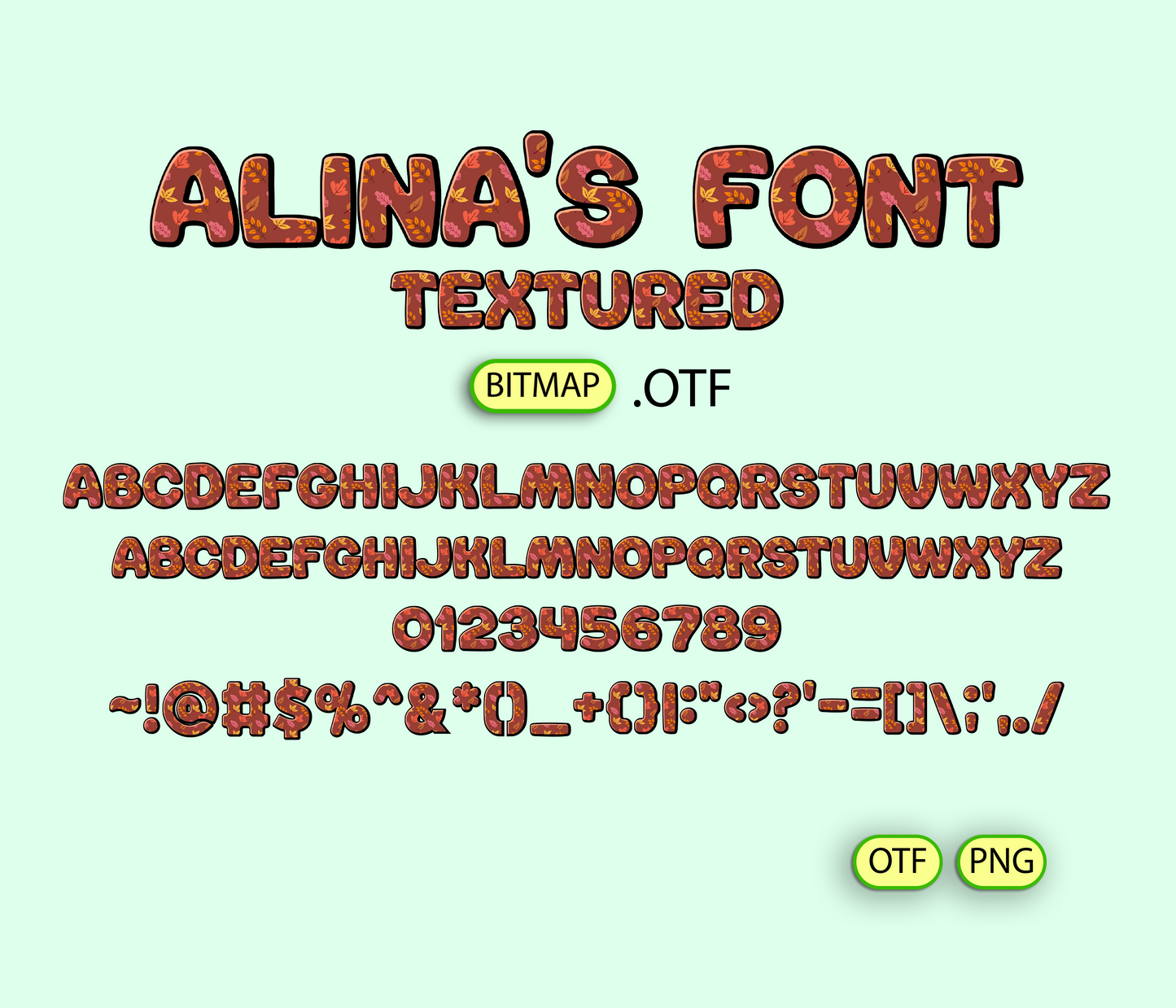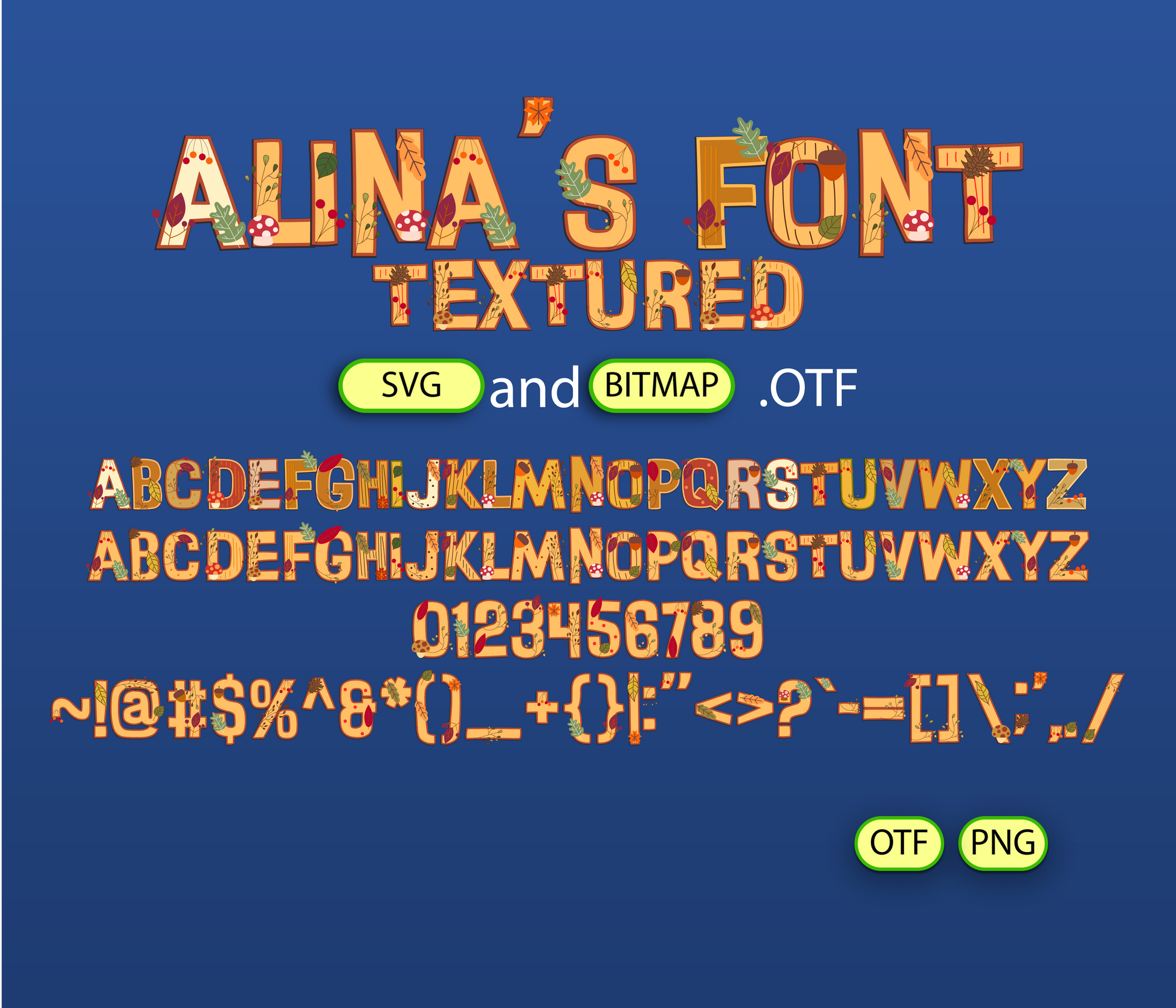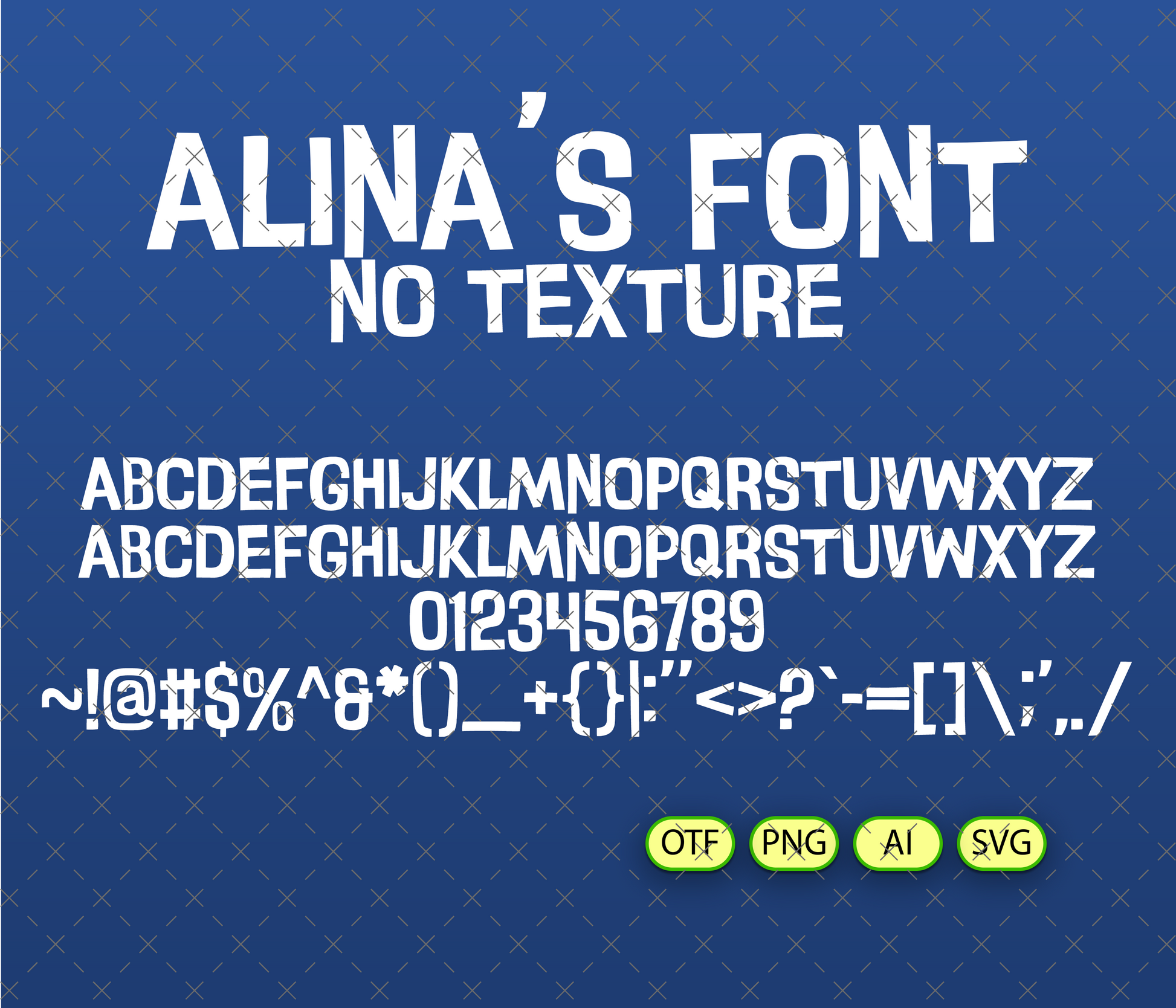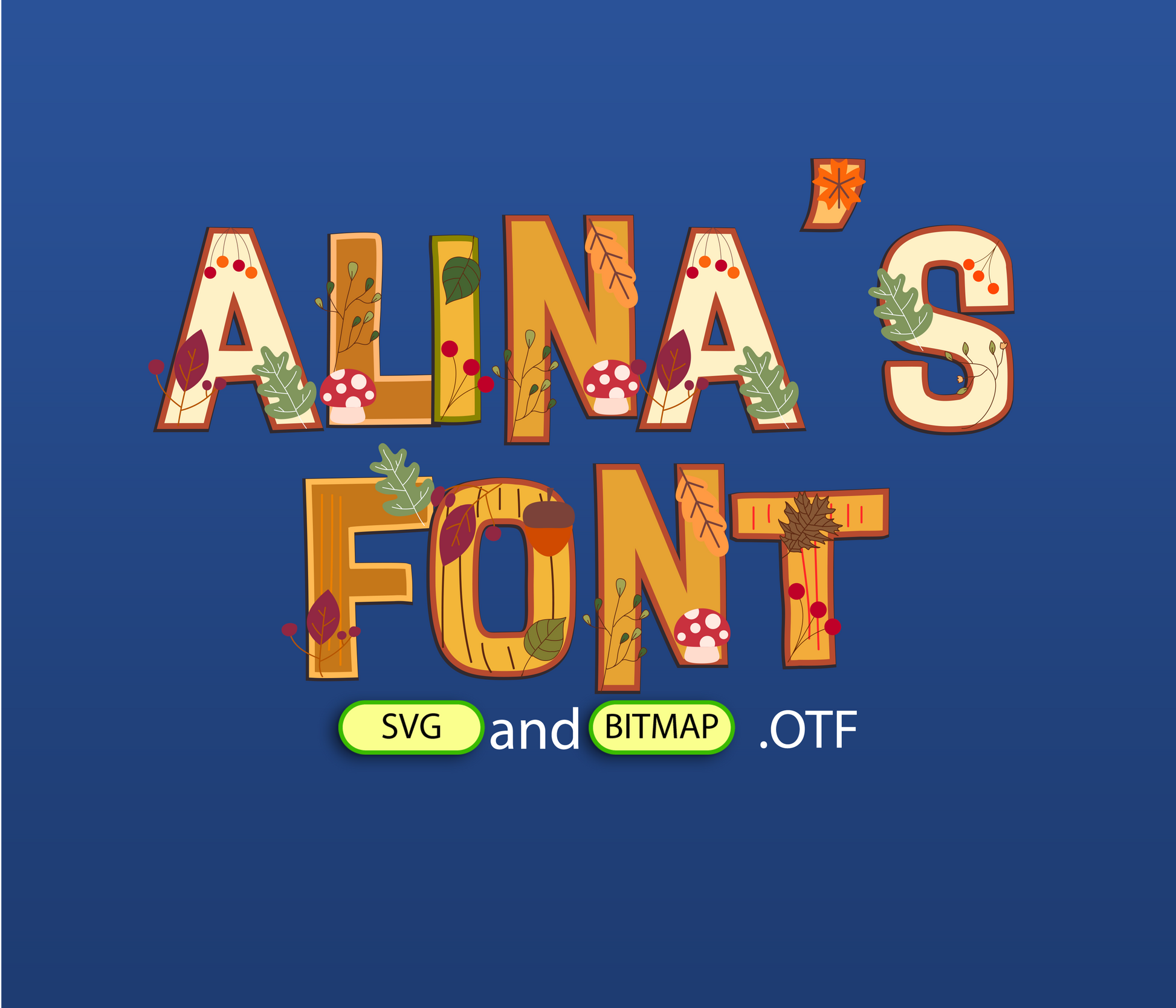
Autumn Harvest Font Textured
Step into the cozy world of fall seasons with our Autumn Harvest font, capturing the essence of golden leaves and crisp weather. Perfect for seasonal enthusiasts, crafters, event organizers, and designers, this font brings the warm, rustic spirit of autumn festivities to your projects. Create enchanting materials, merchandise, or digital content with the nostalgic energy of harvest celebrations.
Our Autumn Harvest font features organic, flowing lines and leaf-inspired characters reflecting the world of seasonal beauty. Ideal for:
- Event Promotions: Create inviting invites, posters, and banners for harvest festivals, thanksgiving gatherings, and fall parties that capture the spirit of autumn magic
- Merchandise Design: Perfect for t-shirts, posters, and accessories that showcase the warm aesthetic of golden leaves and cozy seasons
- Digital Media: Enhance websites, blogs, and social media with seasonal headers and graphics that express the beauty of fall foliage
- Seasonal Content: Add authentic flair to crafts, thanksgiving projects, and creative designs inspired by autumn traditions
- Personal Projects: Bring cozy warmth to scrapbooking, DIY crafts, and home decor inspired by the world of harvest celebrations
Our font pays tribute to the iconic world of fall seasons, empowering your designs with its warm and nostalgic spirit. Whether crafting promotional materials, designing merchandise, or adding a seasonal touch to personal projects, this font communicates the cozy essence of autumn celebrations. Ready to inject harvest warmth into your creations? This font is your key to exciting, impactful design.